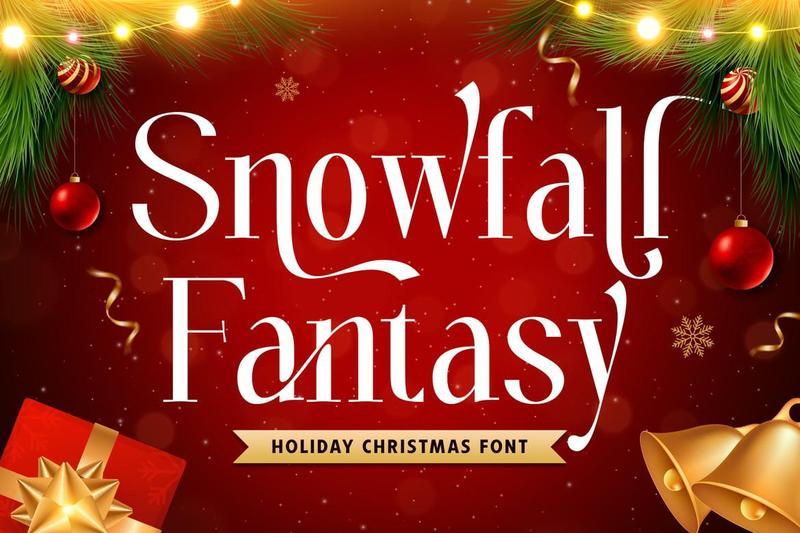
Snowfall Fantasy Christmas Font
Snowfall Fantasy is a magical Christmas font inspired by the beauty of falling snow, winter wonderlands, and festive holiday celebrations. Designed to bring warmth, imagination, and seasonal charm to your projects, this font captures the enchanting spirit of Christmas and transforms every design into a memorable holiday experience.
Crafted with playful yet elegant letterforms, Snowfall Fantasy combines festive character with excellent readability. Its charming style evokes the feeling of snowy evenings, sparkling decorations, and cozy holiday moments, making it a perfect choice for seasonal designs that need a touch of magic and wonder.
This font shines in Christmas and winter-themed projects, including greeting cards, holiday invitations, gift tags, festive packaging, seasonal branding, and decorative signage. Its whimsical appearance adds personality and joy while maintaining versatility across a wide range of creative applications.
Snowfall Fantasy works beautifully for posters, mugs, stickers, social media graphics, party supplies, and holiday merchandise. The delightful letterforms create a warm and cheerful atmosphere, helping your designs stand out with a unique festive look.
The font is also ideal for crafting and DIY projects such as Cricut creations, SVG cut files, handmade ornaments, custom gifts, and winter decorations. Whether used in digital or print formats, Snowfall Fantasy adds a magical winter touch to every creation.
Enchanting Winter Style
Inspired by snowy landscapes and magical holiday moments.
Festive & Charming
Designed to create joyful and heartwarming Christmas designs.
Clear & Readable
Decorative character with excellent legibility.
Versatile Holiday Font
Perfect for seasonal branding, invitations, packaging, and decorations.
Craft-Friendly Design
Ideal for Cricut, SVG files, DIY crafts, and handmade products.
Multilingual Support
Includes extended multilingual characters for worldwide use.
Create Magical Winter Designs
If you’re looking for a font that combines festive charm, snowy elegance, and enchanting holiday spirit, Snowfall Fantasy is the perfect choice. It helps you create designs that feel cozy, magical, and filled with the wonder of the winter season.